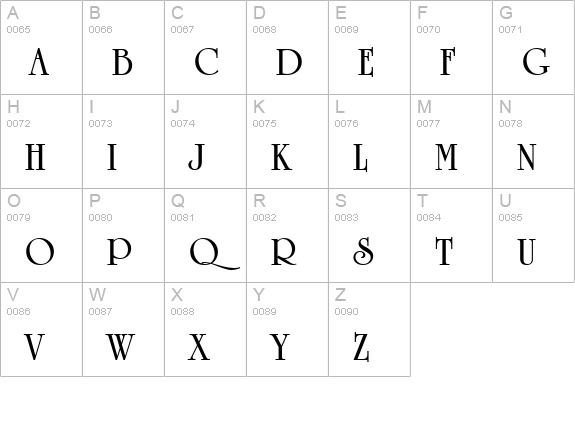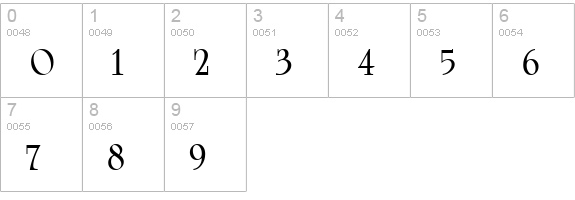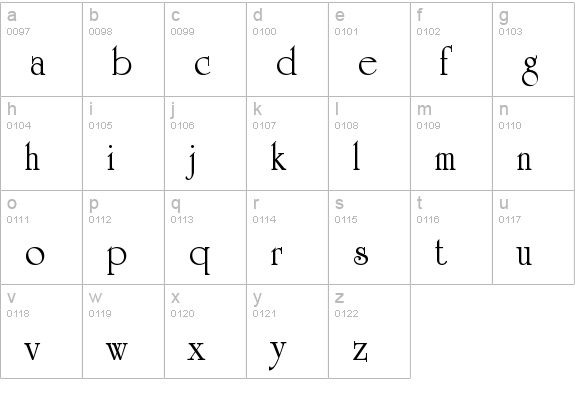
University Roman Bold BT Font Details
University Roman Bold BT is a strong, high-contrast variant in the University typeface family \xE2\x80\x94 well suited to headlines, attention-grabbing titles, and strong calls-to-action.
University Roman Bold BT is a classic and timeless font that exudes elegance and sophistication. With its bold and commanding presence, it is perfect for creating eye-catching headlines, titles, and logos. The strong and crisp letterforms of this font make it legible even at smaller sizes, ensuring that your message is always clear and impactful. What sets University Roman Bold BT apart is that it is not only visually stunning but also freely available to download. You can easily access this exceptional font at FontsMarket.com, where you can explore a vast collection of high-quality fonts for all your design needs. Whether you are working on a professional project, designing a website, or creating promotional materials, University Roman Bold BT will elevate your designs to a whole new level. Its versatility allows it to be used in a wide range of design contexts, from corporate branding to editorial layouts. This font features sturdy and well-defined letterforms that command attention and leave a lasting impression. Its bold nature lends itself to creating statements that demand to be noticed. The carefully crafted details of University Roman Bold BT ensure that each character is distinctive and visually pleasing. The clean lines and balanced proportions of this font give it a timeless appeal, making it suitable for both contemporary and traditional designs. Its versatility allows it to be paired effortlessly with other fonts, creating a harmonious and visually appealing composition. With University Roman Bold BT, you can confidently express your creativity and make a bold statement. This font not only enhances your design but also adds a touch of professionalism and sophistication. Download University Roman Bold BT for free at FontsMarket.com and unlock the boundless possibilities it offers. Discover how this font can elevate your designs and make a lasting impact on your audience. With its striking presence and timeless appeal, University Roman Bold BT is a must-have in any designer's toolkit.